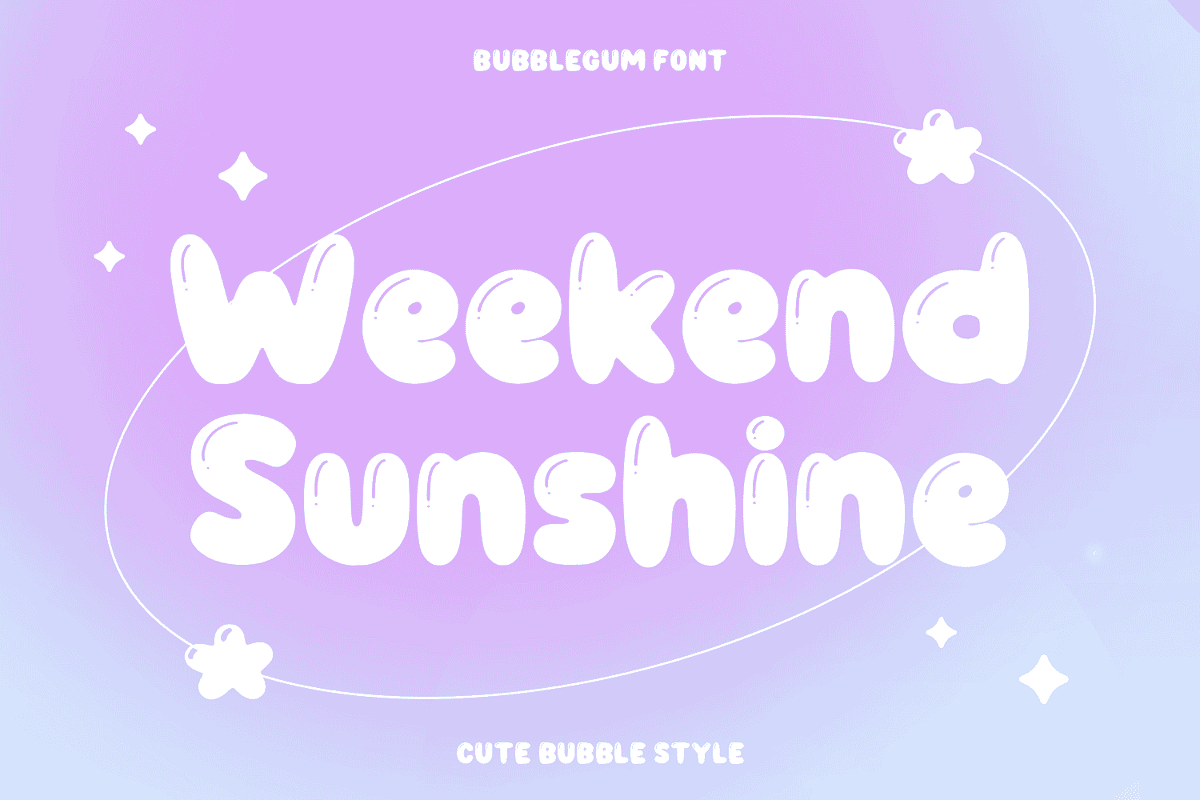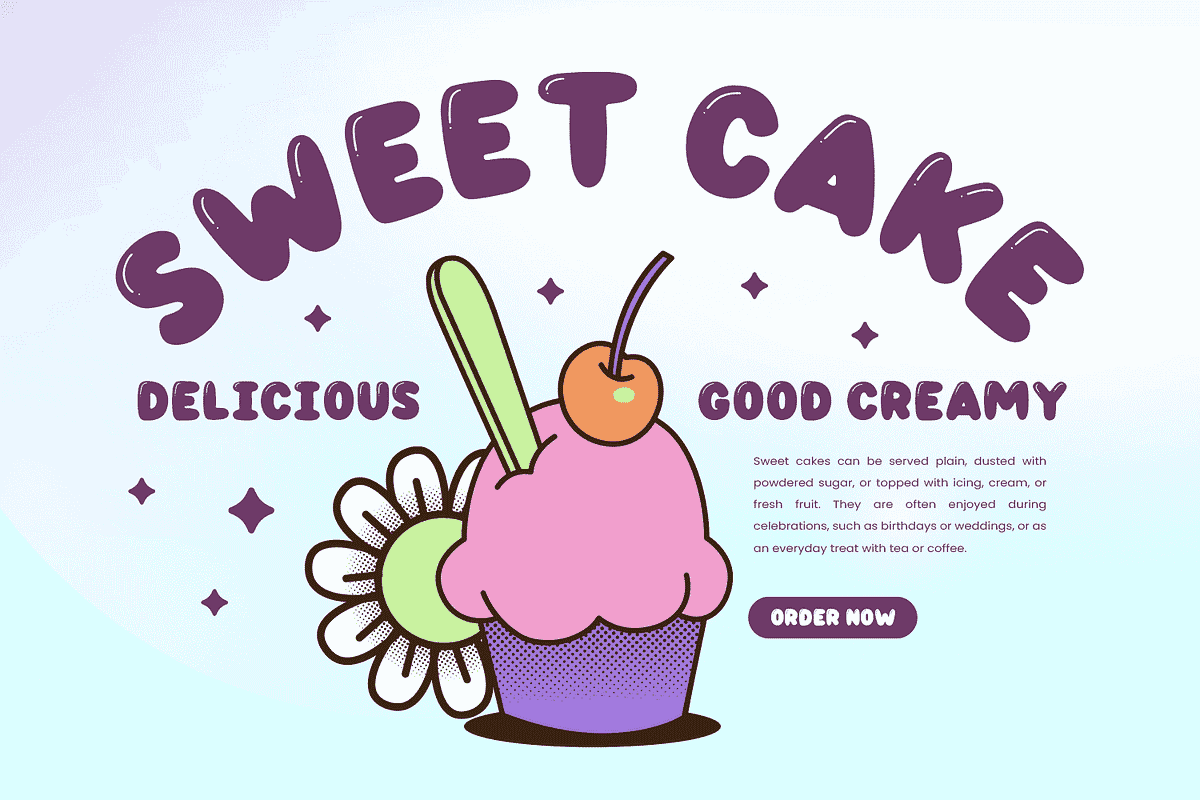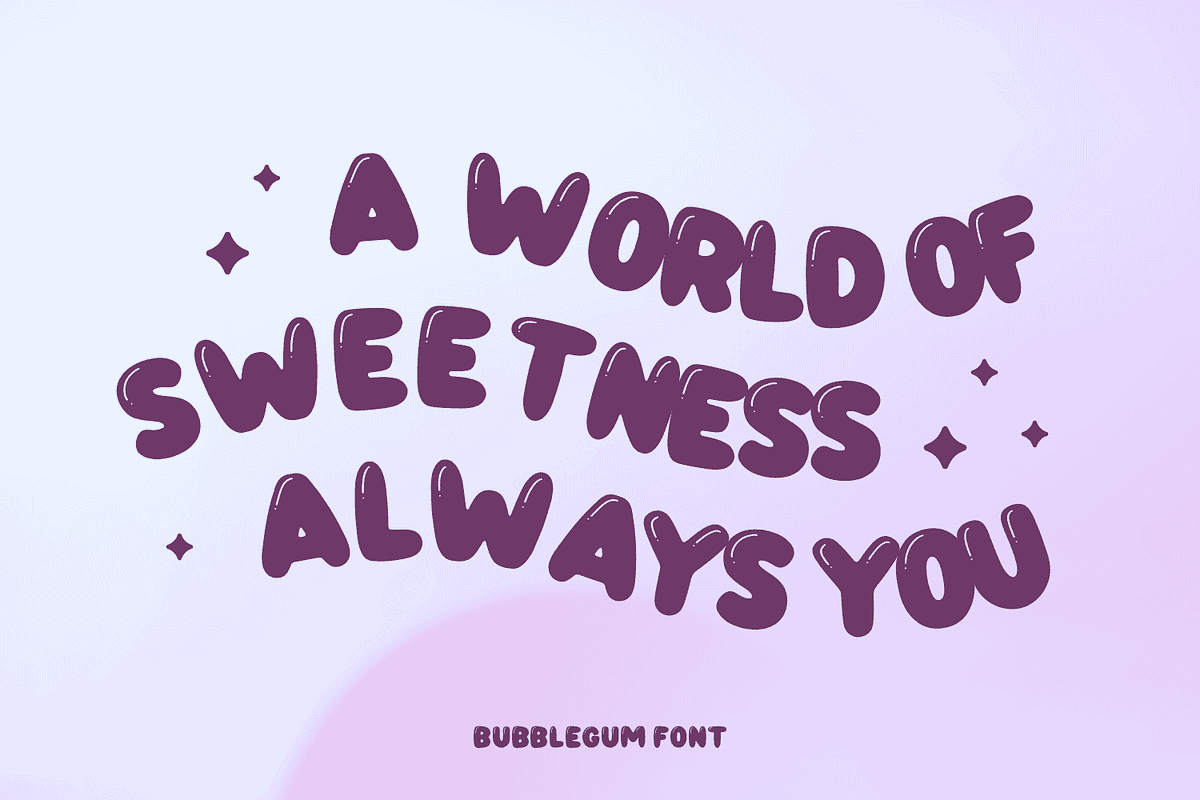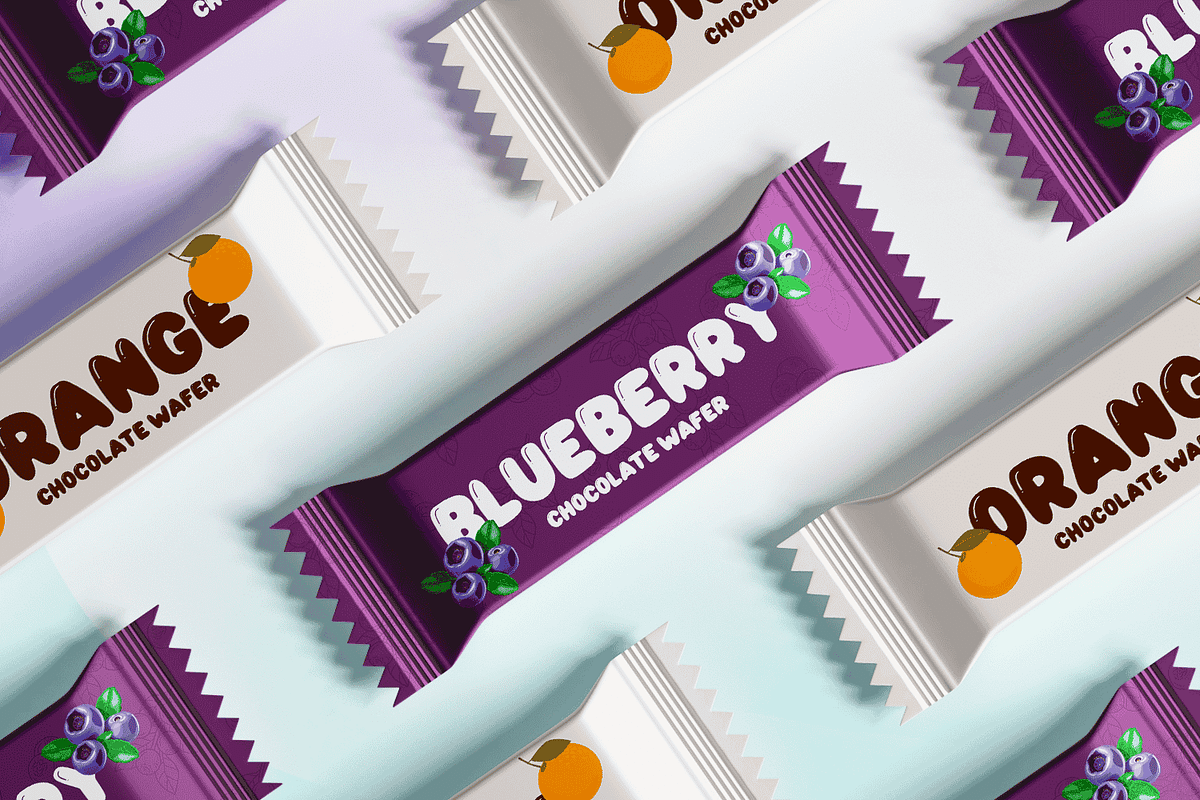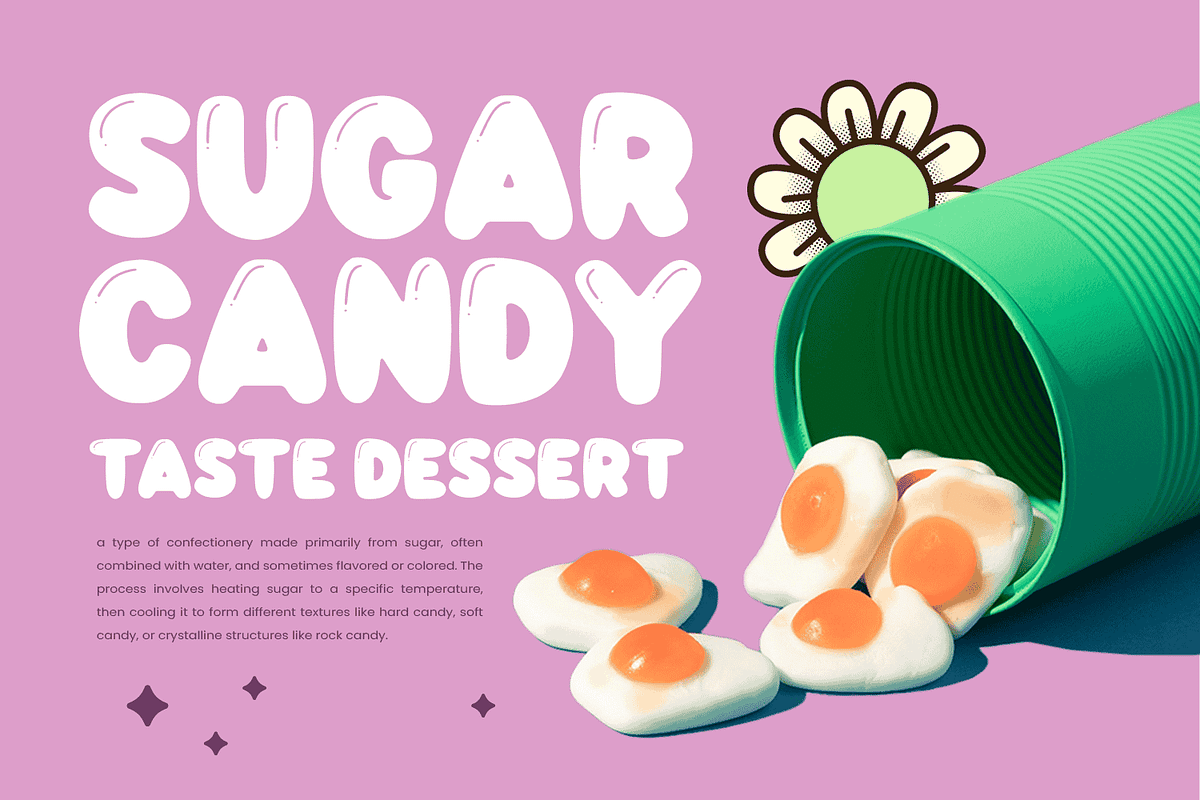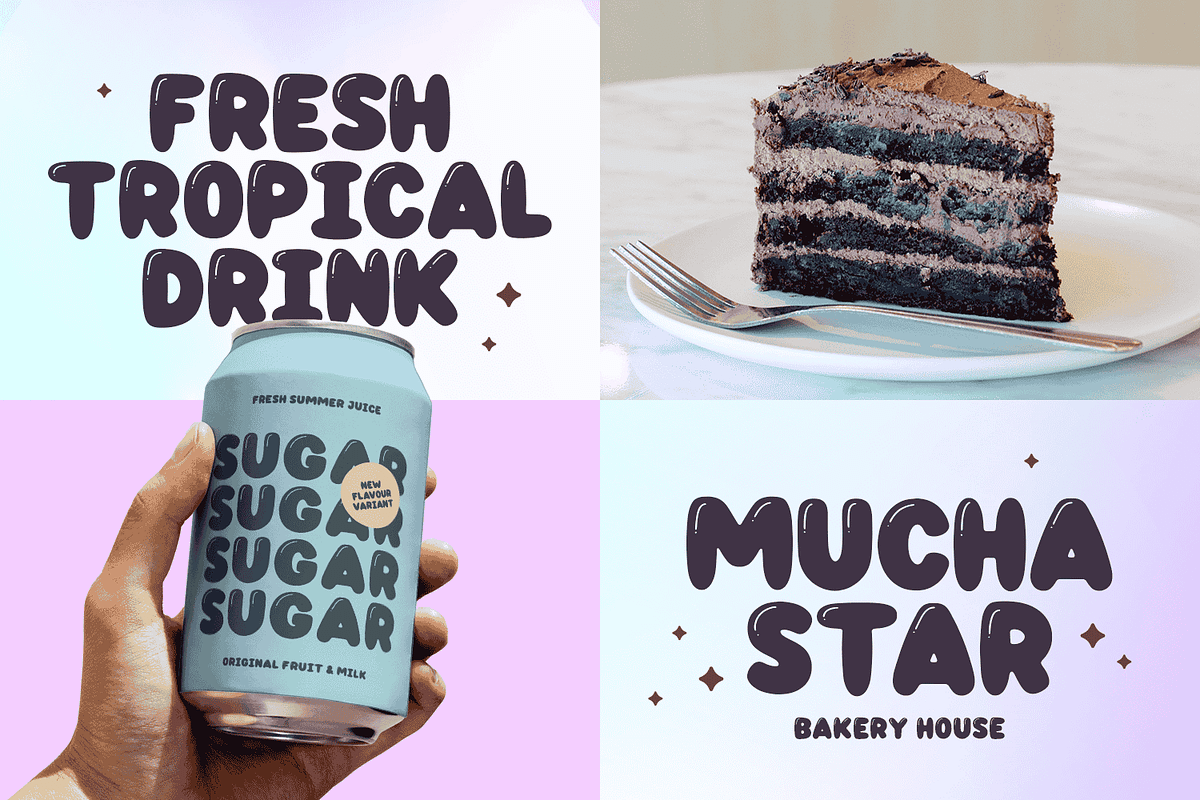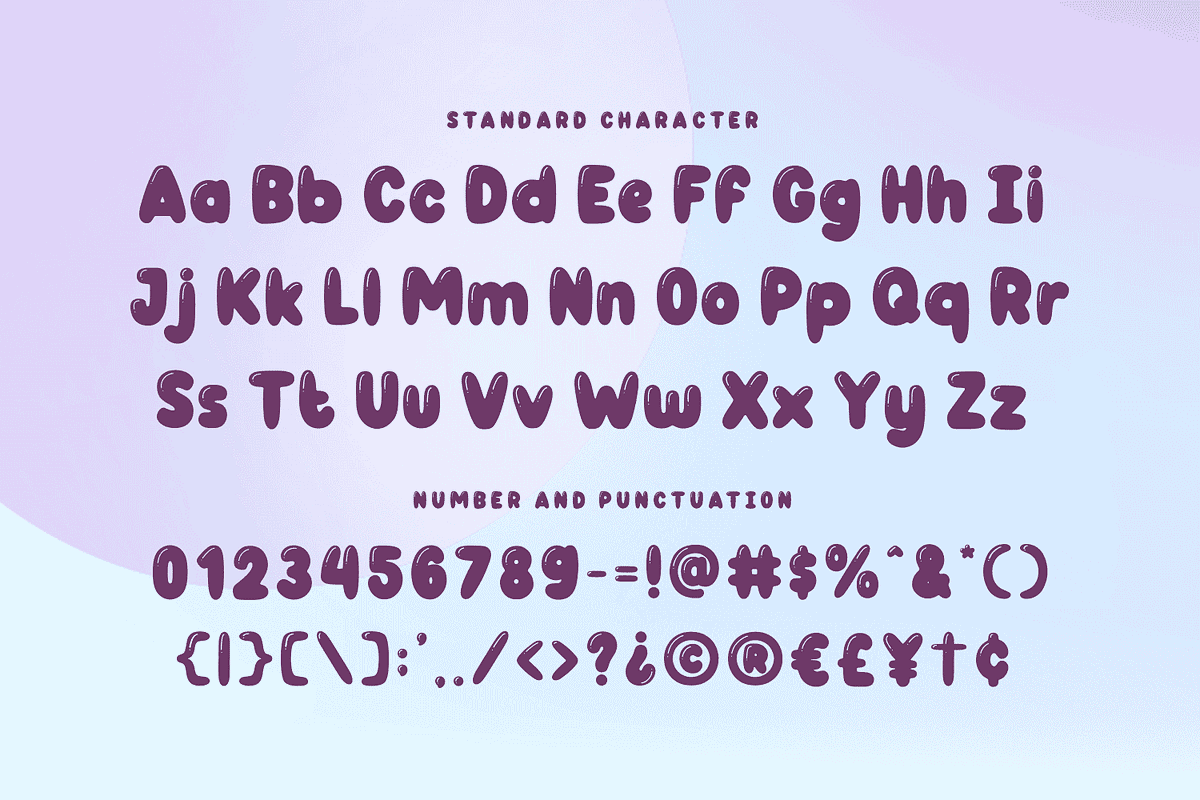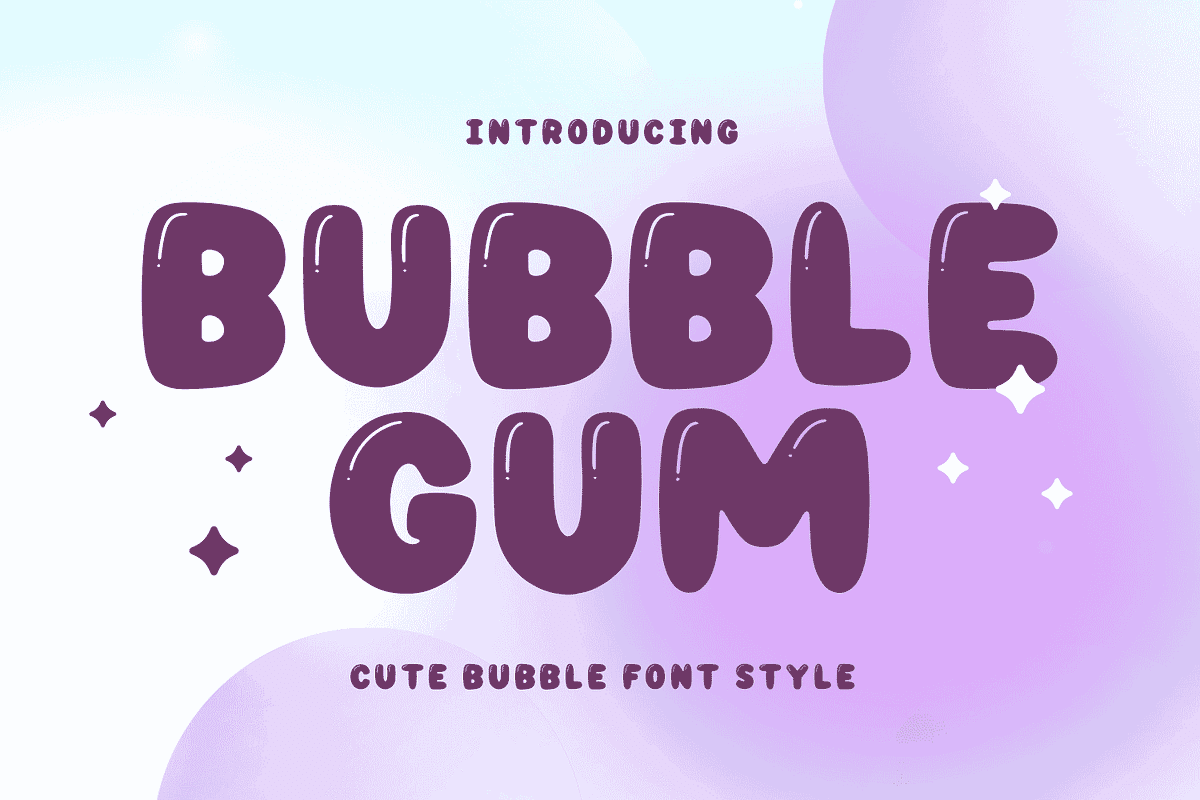
BUBBLEGUM
Introducing Bubblegum, a fun and cute display font that adds a playful touch to every design! Perfectly crafted with bubbly, rounded letters, this font is ideal for creating a joyful atmosphere that will bring smiles to all ages. Whether you’re working on invitations, baby showers, or kids' projects, Bubblegum is here to make your text pop with charm and sweetness.
Bubblegum is the ultimate choice for birthday invitations, school projects, and all things related to kids. Its cheerful and bouncy style makes it perfect for crafting adorable designs, from birthday cards to posters for little ones’ rooms. It’s a font that radiates joy and is sure to captivate children's attention, making every project feel extra special.
Embrace the sweet, vibrant spirit of Bubblegum for your next creative endeavor! From food and drink menus to baby-themed crafts and SVG projects, this font brings a dash of whimsy and delight to any design. Its versatile style makes it a must-have for designers looking to add a touch of cuteness to their work.
Ready to make your designs stand out with a playful, youthful vibe? Try Bubblegum today and let your creativity run wild! It’s perfect for adding that extra sprinkle of joy to your projects, making it a favorite for invitations, school crafts, and more. Let Bubblegum be your go-to font for all things fun, cute, and irresistibly charming!
- Standard & Multilingual glyphs.
- Fonts include multilingual support for; Afrikaans, Danish, Dutch, French, German, Indonesian, Irish, Italian, Norwegian, Portuguese, Scottish, Spanish, Swedish, Swiss etc.